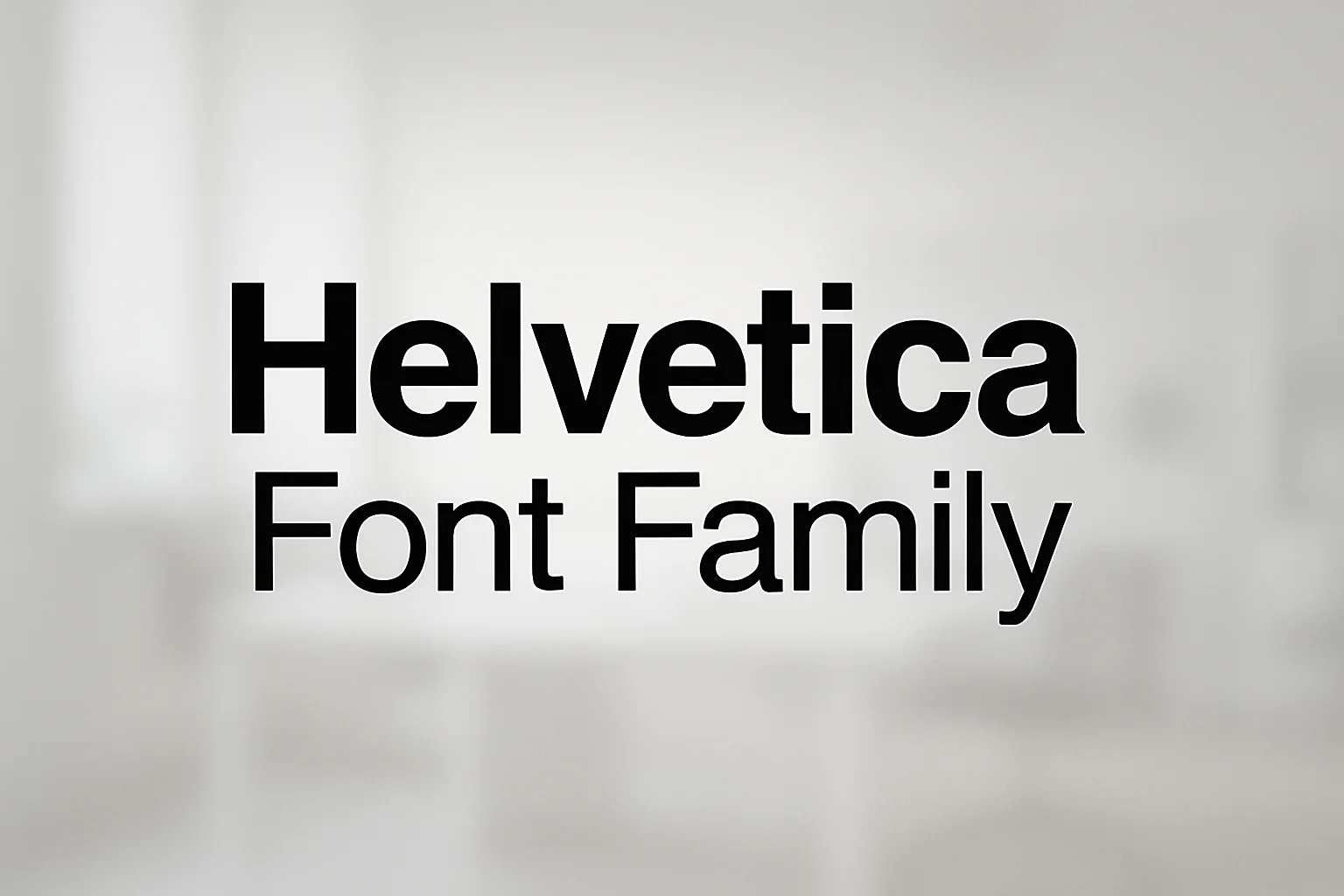
This is a new neo-grotesque design that has been inspired by the 19th century’s typefaces such as Akzidenz-Grotesk font and some other German and Swiss designs.
NameHelvetica Font
DesignerMax Miedinger, Eduard Hoffmann
FoundryLinotype
Date Released1957